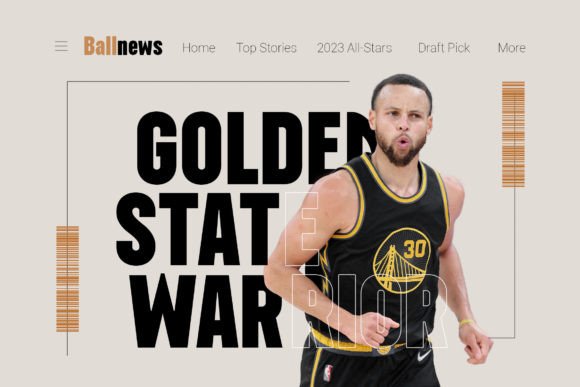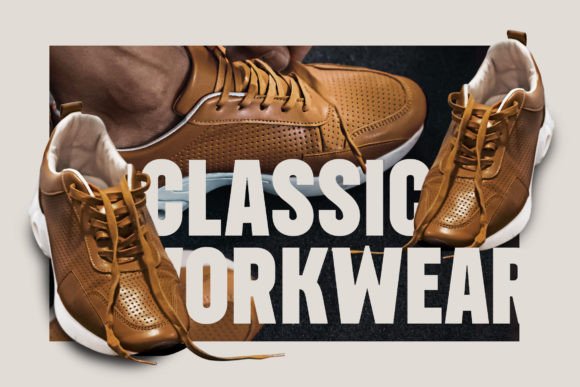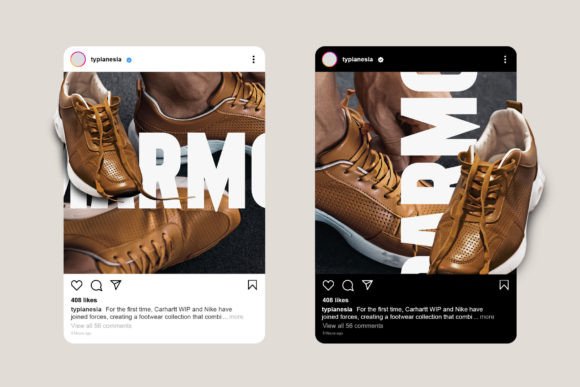
Introduction to Mangold Font
As designers, we’ve all been there – staring at a blank page, trying to come up with the perfect idea for a client or personal project. The cursor blinks away, taunting us with its emptiness. But what if I told you there’s a font that can spark creativity and make your designs stand out? Enter the Mangold Font, a bold and dynamic display font that’s perfect for sports and active brands.
With its condensed design, Mangold Font is ideal for creating eye-catching titles and headlines. Its functional and versatile nature makes it a valuable resource for designers, offering a high-quality option for a variety of design projects, from logos to posters, advertisements, and more. Whether you’re promoting a sports event, a fitness brand, or an athletic product, Mangold Condensed Sans is sure to make a statement.
Key Features of Mangold Font
- High-quality, elegant design suitable for various creative projects, including invitations, posters, and more.
- Perfect for designers looking for a unique and stylish font to elevate their creative project.
Honest Review: Mangold Font
I recently had the chance to work with the Mangold Font, and I must say it’s been a game-changer for my creative projects. This font is perfect for designers who need a unique and high-quality design resource.
- What works well: ✨ The Mangold Font offers a wide range of styles and weights, making it incredibly versatile for various design projects.
- What works well: ✨ The transparent background option allows for seamless integration with images and graphics, adding a touch of professionalism to any design.
Tips for Getting the Most Out of Mangold Font
Use the Mangold Font in conjunction with other design elements, such as images and graphics, to create visually appealing designs. Experiment with different font sizes and styles to add emphasis and create a professional-looking design.
The Mangold Font is perfect for a variety of design projects, including logos, business cards, posters, and presentations. It’s also great for creating social media graphics, flyers, and brochures. Its transparent background makes it easy to layer with other design elements, making it a versatile design resource.